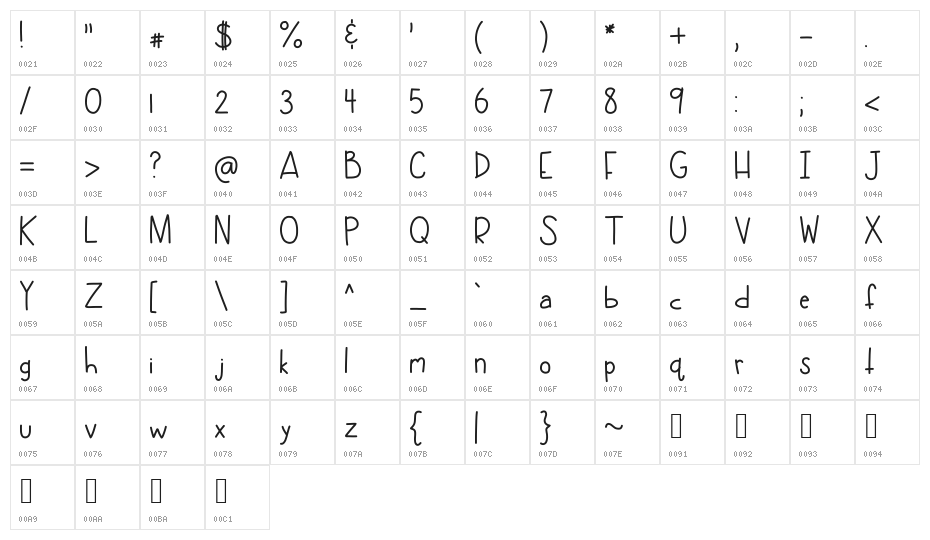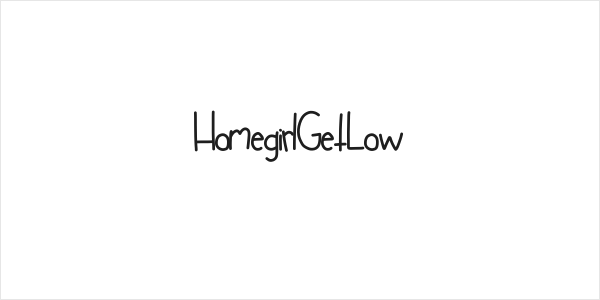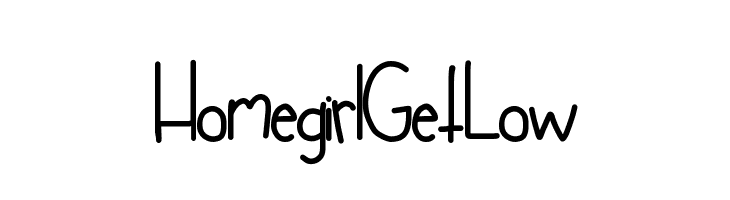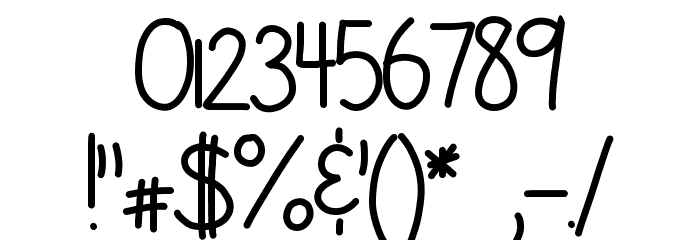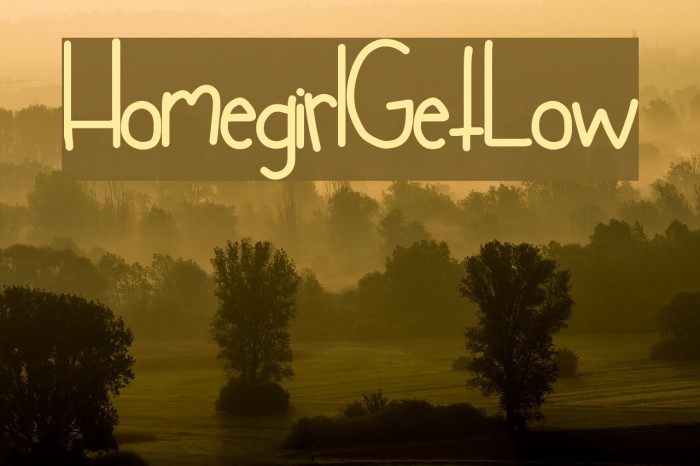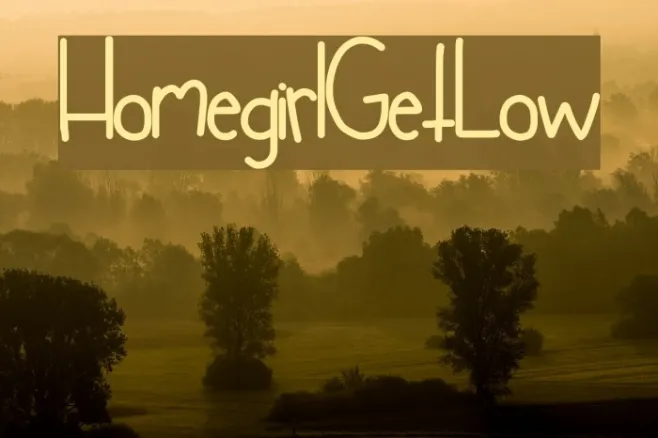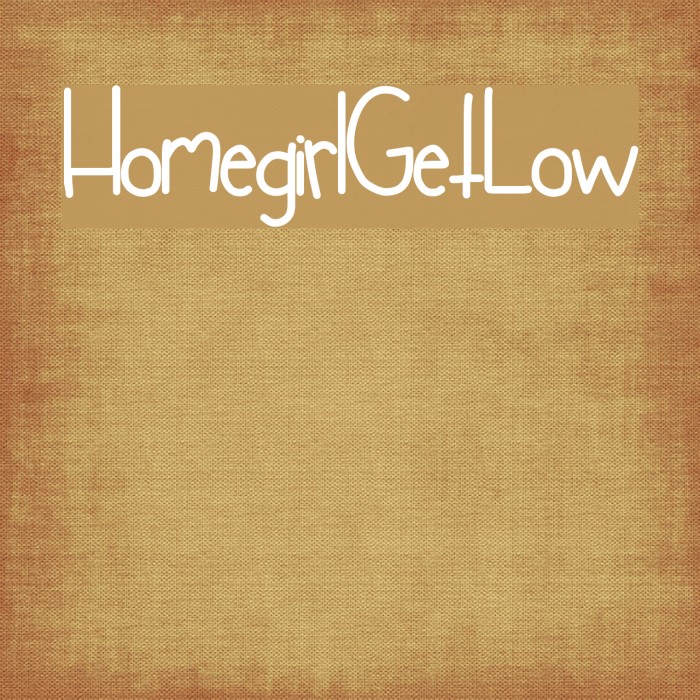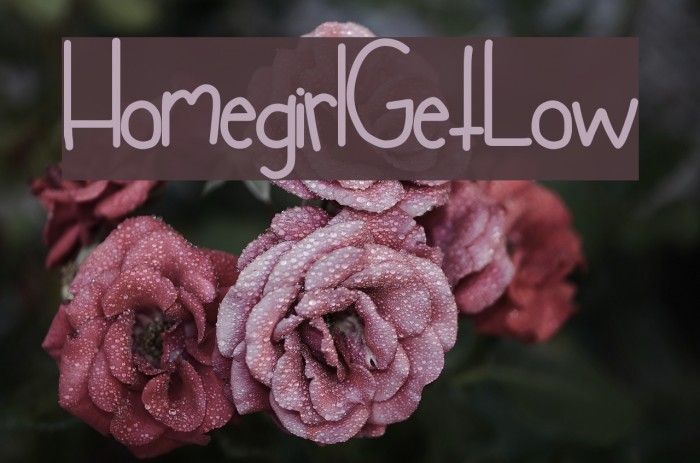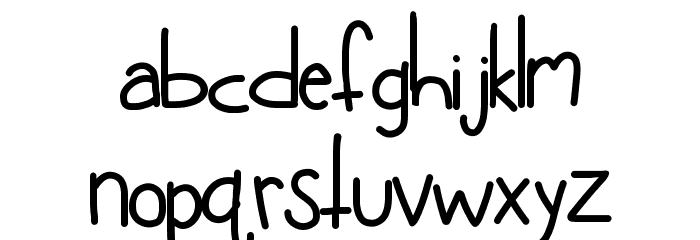
HomegirlGetLow Font
HomegirlGetLow Description
This playful and casual font features a handwritten style with a friendly and approachable appearance. The letters are rounded and slightly irregular, giving it a whimsical and informal feel. The uppercase and lowercase letters maintain a consistent style, with the lowercase letters being slightly smaller and more compact. The numbers and special characters are designed to match the overall playful aesthetic, making it suitable for creative and informal projects. The font's unique character and charm make it ideal for designs that require a personal touch.
| Proposed Projects | Ideal for children's books, greeting cards, playful branding, and casual invitations. |